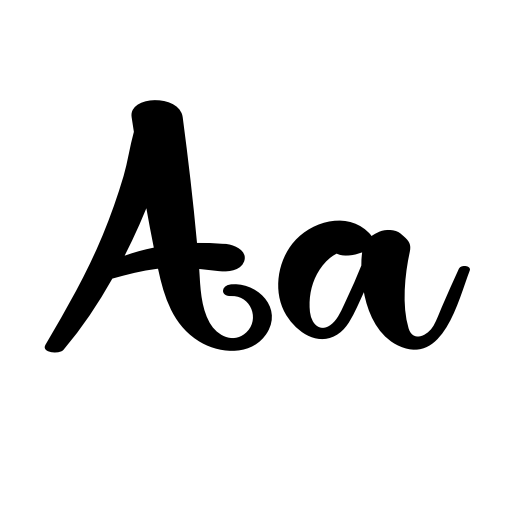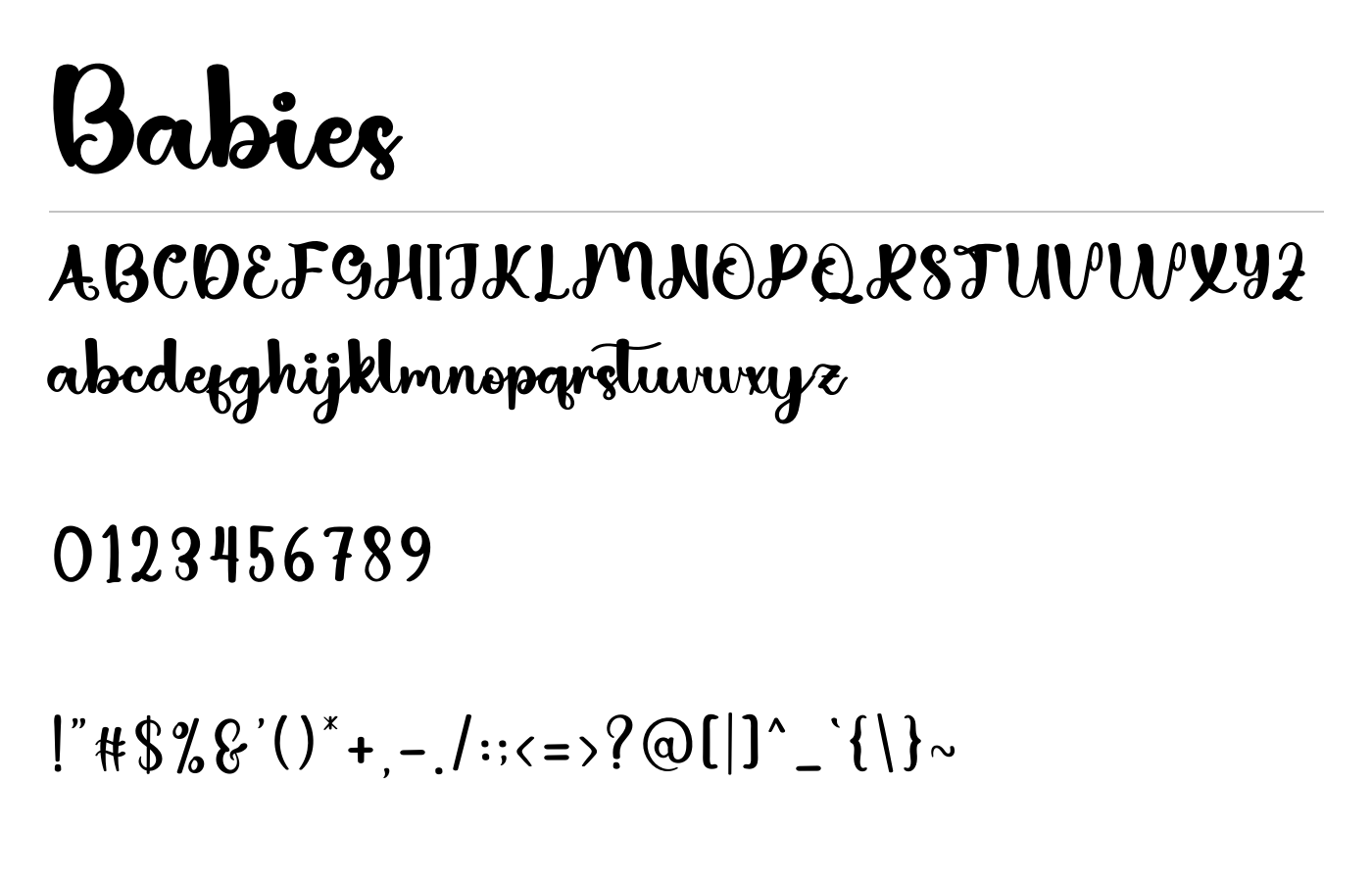
Babies Font is a playful and charming script-style typeface with a friendly, hand-drawn feel, featuring smooth curves and whimsical letterforms that create a warm, inviting mood. Its medium weight and lively, slightly irregular strokes make it perfect for children's brands, casual invitations, and fun, approachable headlines where personality and friendliness are key. This font works well in designs that aim to communicate joy, creativity, and a touch of innocence.
Babies Font
About Babies Font